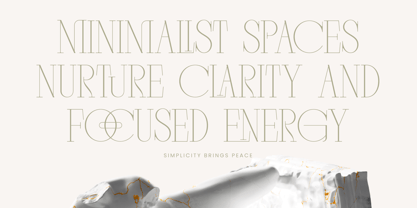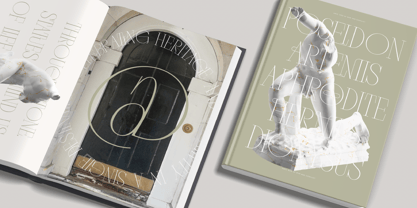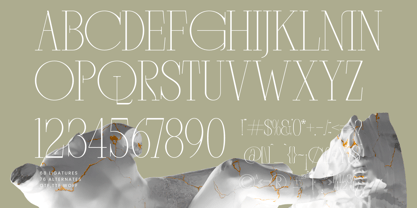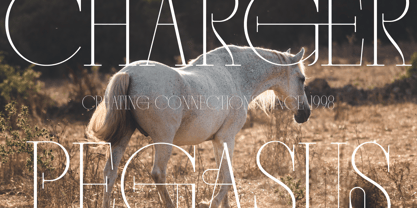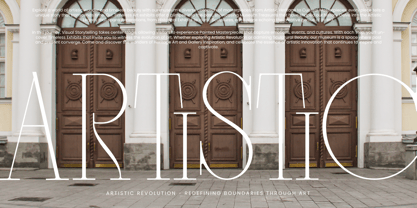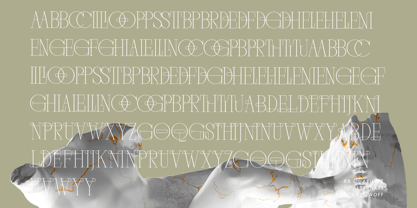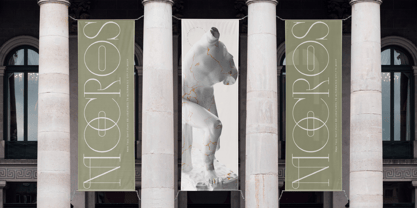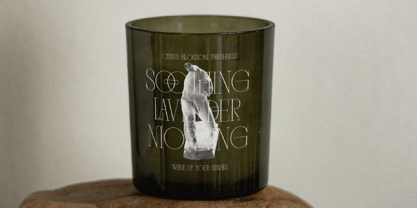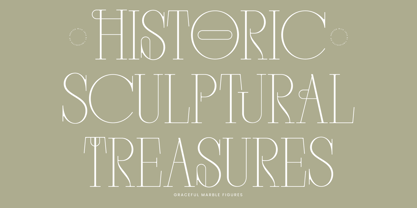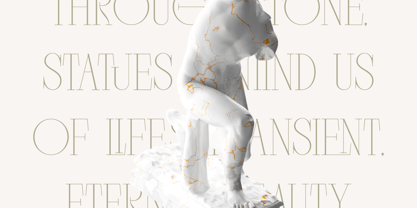
The Mocros Font Family was designed by Heru Utama Putra and published by Timelesstype Studio. Mocros contains 2 styles and family package options. More about this family
Mocros - New Tall Serif Font , from Timelesstype, Suitable for any projects such as: logos, branding projects, homeware designs, product packaging, mugs, quotes, posters, shopping bags, t-shirts, book covers, name card, invitation cards, greeting cards, label, photography, watermark, special events, and all your other luxury and beautiful projects that need a Luxury Serif taste.